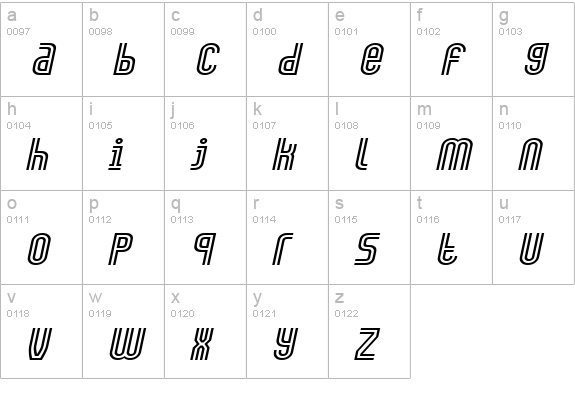
ArchExtended Italic Font Details
ArchExtended Italic is a distinctive, italic variant in the ArchExtended typeface family \xE2\x80\x94 well suited to design and typography projects.
ArchExtended Italic is a modern and stylish font that exudes sophistication and elegance. Its slanted italic style adds a touch of flair and uniqueness to any design project. This font is perfect for creating eye-catching headlines, logos, and branding materials. What's even better is that ArchExtended Italic is available for free download at FontsMarket.com. Now you can elevate your design game without breaking the bank. Don't miss out on this opportunity to add a touch of class to your projects with ArchExtended Italic font.